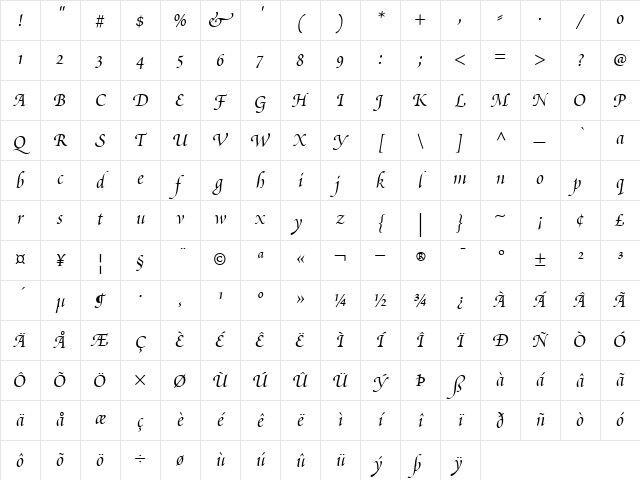
Complete PoeticaChanceryIII RomanItalic glyph index. Displaying only characters natively supported by PoeticaChanceryIII RomanItalic font.
PoeticaChanceryIII is a composed and adaptable typeface that performs quietly and consistently across a wide range of design contexts. The slanted form adds forward momentum and visual energy.